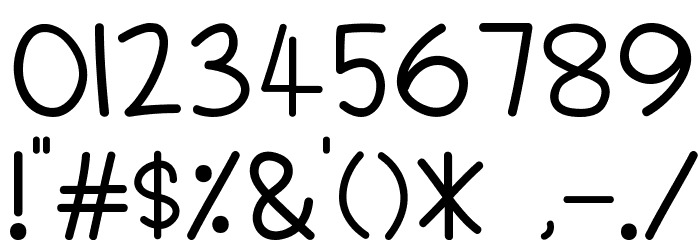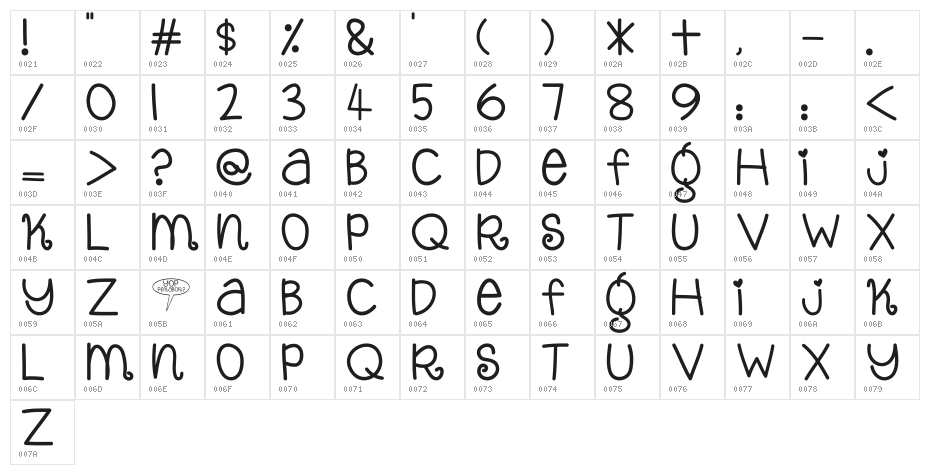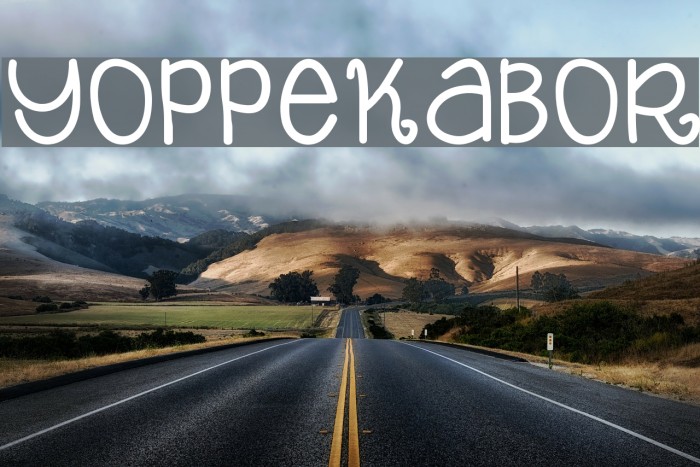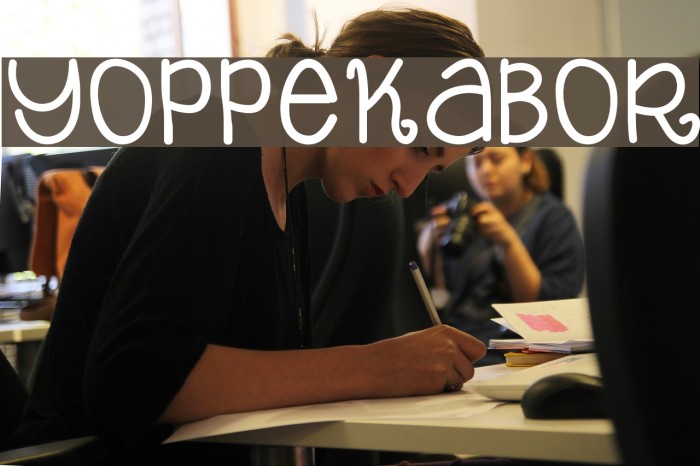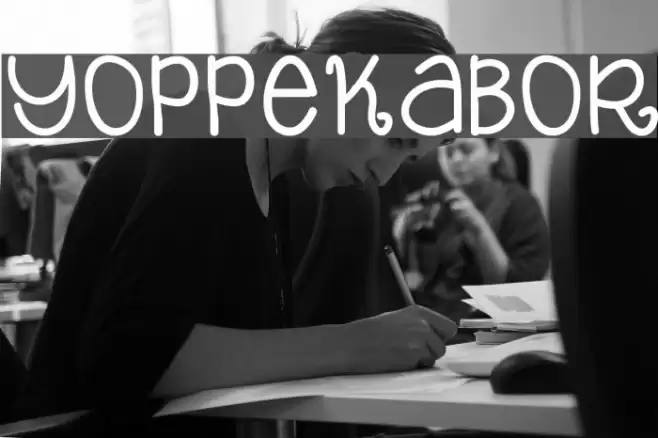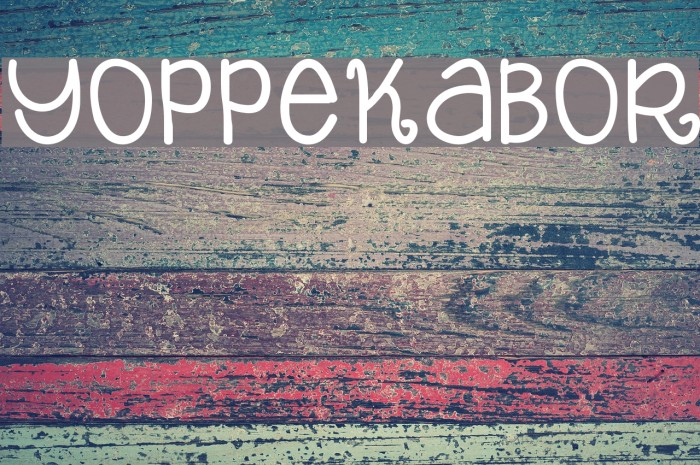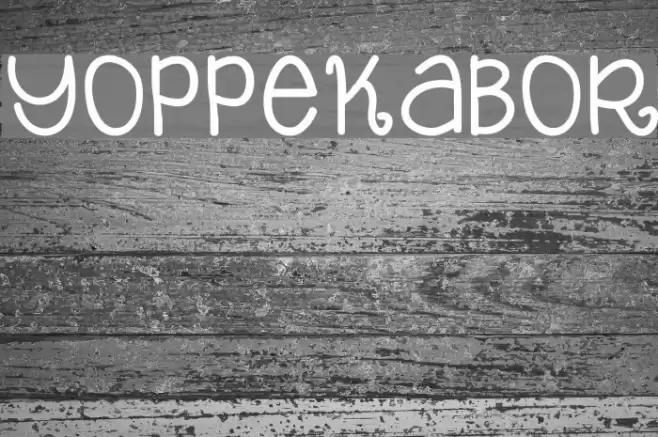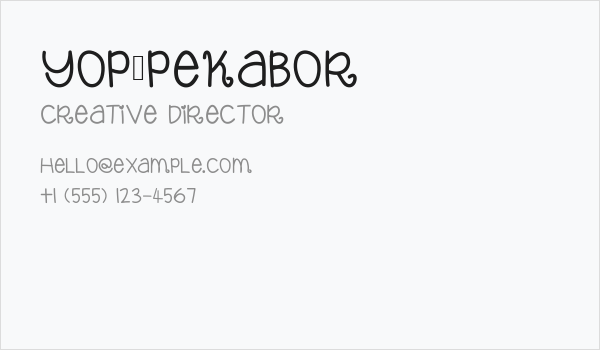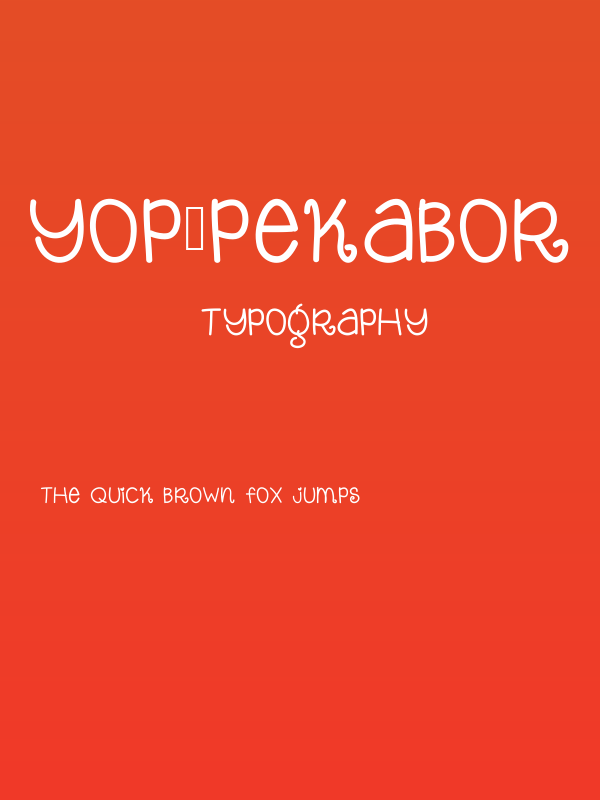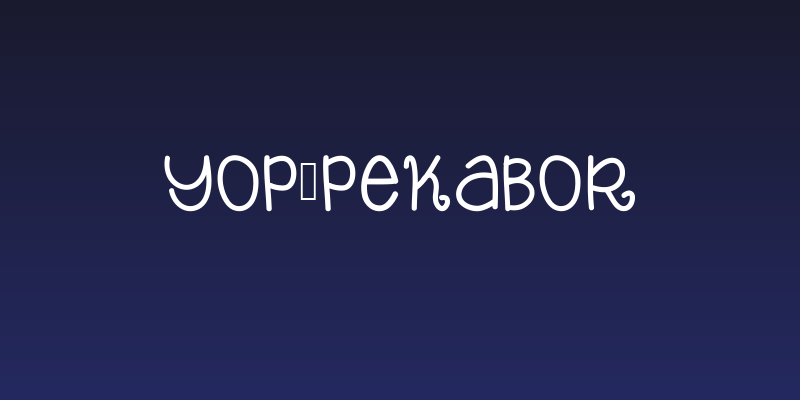
Yop_Pekabor Font
Yop_Pekabor Description
This playful and whimsical font features a unique, hand-drawn style with a touch of elegance. Each character is crafted with a slight curl or flourish, adding a sense of movement and personality. The uppercase and lowercase letters maintain a consistent style, with rounded edges and a slightly uneven baseline that enhances its casual charm. Numbers and special characters are designed to match the overall aesthetic, making it versatile for various creative projects. The font's distinctive look is perfect for adding a fun and friendly vibe to any design.
| Proposed Projects | Ideal for children's books, greeting cards, playful branding, and creative posters. |